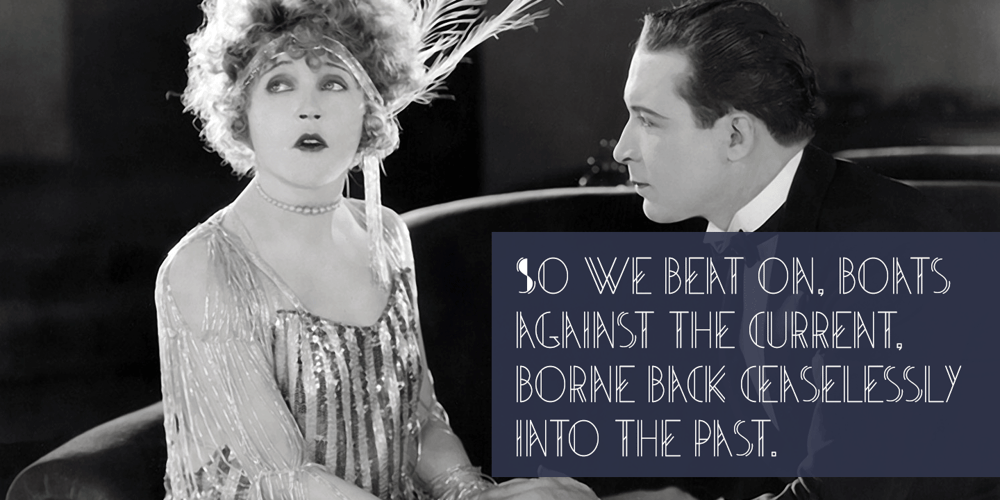
Artie Deco Font Family was designed by Kent Swecker and published by A New Machine. Artie Deco contains 1 styles and family package options. Completely new font inspired by 1920’s design and architecture. This elegant font is suitable for titles and bold headers and would work great on invitations and posters.